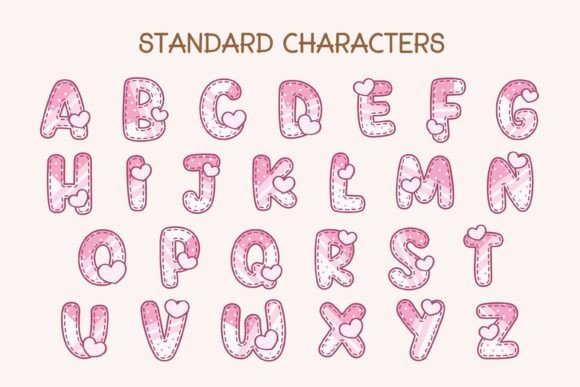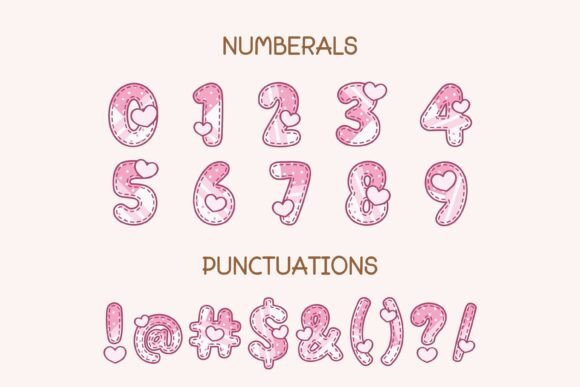
Introduction to Malibu Dream Font
Unleash Valentines Heart creativity with our font, featuring playful heart Alphabet Letters, Heart Numbers, and Punctuation.
Perfect for quick and quirky crafting adventures Bring the joy and texture of a handmade holiday gift to your typography with the cute Heart Color Font, a wonderfully tactile display typeface.
Key Features of Malibu Dream Font